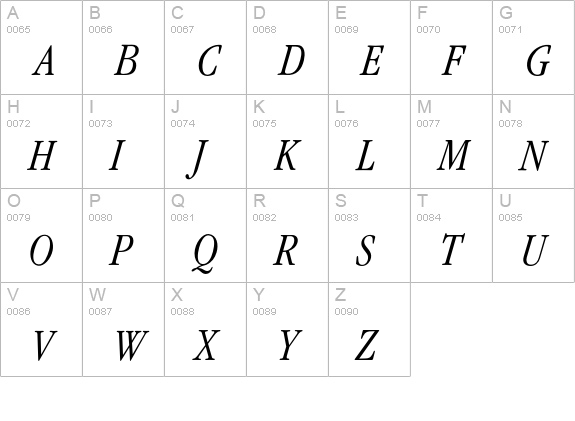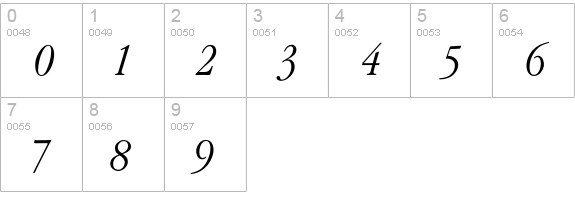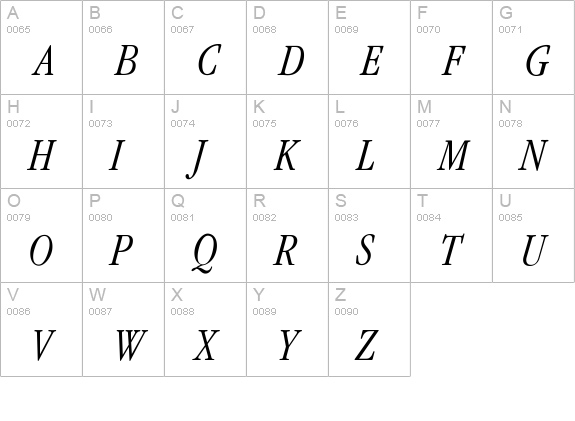
GaramondCondLightItalic Font Details
GaramondCondLightItalic is a beautifully crafted font that exudes elegance and sophistication. With its delicate curves and graceful slant, this font is perfect for adding a touch of refinement to any design project. This font offers a unique blend of classic and contemporary elements, making it versatile and suitable for a wide range of applications. Whether you are designing a wedding invitation, a book cover, or a logo, GaramondCondLightItalic will elevate your design to new heights. One of the best features of GaramondCondLightItalic is that it is freely available to download at FontsMarket.com. This means that you can access this stunning font without any cost, making it an excellent option for designers on a budget or those who simply want to experiment with different fonts. The free availability of GaramondCondLightItalic is a testament to FontsMarket.com's commitment to providing high-quality resources to designers and creatives worldwide. By offering this font for free, FontsMarket.com allows designers to access professional-grade typography without breaking the bank. So, if you are in search of a font that combines elegance, versatility, and affordability, look no further than GaramondCondLightItalic. Download it for free at FontsMarket.com and unleash your creativity with this stunning typeface.